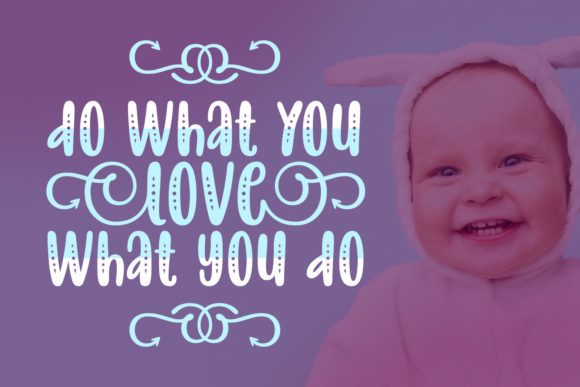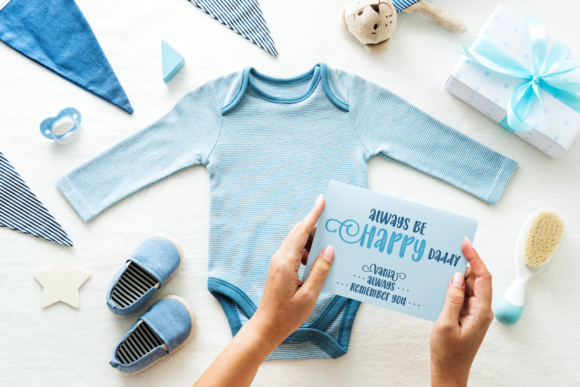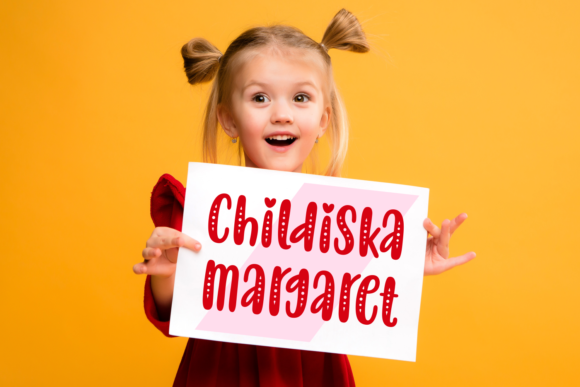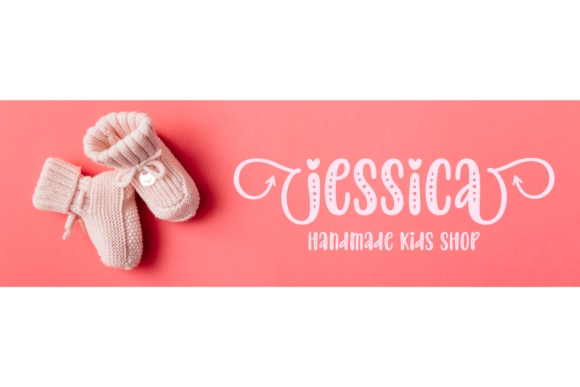
Meet Your New Favorite Font: Baby Olivia Font
Have you ever stared at a blank page, feeling the pressure to create something truly special? That’s when the magic happens – the spark of inspiration ignites, and your imagination runs wild. It’s in these moments that we need the perfect tool to bring our vision to life.
Enter the charming Baby Olivia Font, a delightful display font that’s sure to put a smile on your face. With its intricate details and whimsical charm, this font is perfect for adding a touch of magic to any creative project. Whether you’re designing a children’s book, a wedding invitation, or a social media graphic, Baby Olivia Font is the perfect companion to help you create something truly unique.
Baby Olivia Font Key Features
- Unique Characteristics: Hand-drawn, cursive, and playful design; suitable for baby-related products, children’s books, and family-oriented branding
- Font Style: Casual, Friendly, Whimsical
- Character Set: Latin, Western European, and many special characters for accents and diacritics
Designer Review: Baby Olivia Font
First impressions are everything, and Baby Olivia Font ✨ caught my eye with its whimsical, hand-drawn feel. The font’s playful nature makes it perfect for children’s books, nursery decor, or any project that requires a touch of sweetness. The varied letterforms and flourishes add a sense of movement and energy to the design.
- ✨ Unique and charming design that’s perfect for children’s projects
- ✨ Great for titles, headings, and short text passages where the whimsical feel can shine
- ✨ Comes in various weights and styles to accommodate different design needs
- ⚠️ The font may not be suitable for large blocks of text, as the hand-drawn feel can become overwhelming
- ⚠️ The font’s unique style may not be to everyone’s taste, so it’s essential to test it in different contexts before committing to a design
Overall, Baby Olivia Font is a delightful addition to any designer’s toolkit. While it may have some limitations, its unique charm and versatility make it a great choice for the right projects. With some careful consideration and planning, this font can help create truly special designs that capture the essence of childhood wonder.
Getting the Most Out of Baby Olivia Font
For the best results, use Baby Olivia Font for titles, headings, and short paragraphs. It’s a decorative font, so use it sparingly to avoid overwhelming the design.
Experiment with different font sizes, colors, and styles to create a unique and eye-catching design.
Baby Olivia Font is perfect for:
Children’s book covers
Party invitations
Baby shower decorations
Wedding stationery
Great Vibes Font is more formal and elegant compared to Baby Olivia Font, which is more playful and whimsical. Great Vibes Font is ideal for projects where you want to convey a sense of elegance and sophistication, while Baby Olivia Font is better suited for projects that require a more casual and playful tone.
Alex Brush Font is more personal and handwritten compared to Baby Olivia Font, which is more stylized and decorative. Alex Brush Font is ideal for projects where you want to convey a sense of authenticity and human touch, while Baby Olivia Font is better suited for projects that require a more polished and refined look.